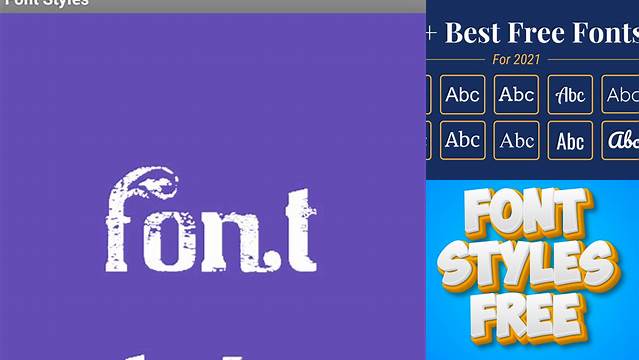
Free Font Styles Download For Android: A Guide
Hey guys! Are you tired of the same old fonts on your Android device? Do you want to add some personality and flair to your phone's interface? Well, you've come to the right place! In this comprehensive guide, we'll explore the world of free font styles for Android and show you how to download and install them. Get ready to transform your phone's typography and make it truly your own!
Why Customize Your Android Fonts?
Before we dive into the how-to, let's talk about why you might want to customize your fonts in the first place. Your phone's font is a crucial element of its overall look and feel. It affects everything from the readability of your text messages to the visual appeal of your home screen. By changing your font, you can:
- Express your personality: Fonts can be bold, elegant, playful, or serious. Choosing the right font can reflect your individual style and make your phone feel more like you.
- Improve readability: Some fonts are simply easier to read than others. If you struggle with the default font on your phone, switching to a more legible option can make a big difference.
- Enhance visual appeal: A new font can give your phone a fresh, modern look. It's a simple way to breathe new life into your device without spending a dime.
- Stand out from the crowd: In a world of identical smartphones, custom fonts are a great way to set your device apart.
So, if you're looking to personalize your Android experience, changing your font is a fantastic place to start. Let's get into the different methods and some awesome font resources!
Pros of using font apps:
- Ease of Use: Font apps are generally user-friendly and offer a straightforward way to browse, download, and install fonts.
- Wide Selection: These apps often have vast libraries of fonts, giving you plenty of options to choose from.
- Preview Feature: Many apps allow you to preview how a font will look before you download it, helping you make the right choice.
Cons of using font apps:
- Root Access May Be Required: Some apps require root access to apply fonts system-wide, which can be a barrier for many users.
- Compatibility Issues: Not all font apps are compatible with all Android devices. You may encounter issues with certain apps or fonts.
- Ads and In-App Purchases: Many free font apps are supported by ads, and some offer premium fonts or features through in-app purchases.
2. Using Custom Launchers
Another great method to customize fonts on Android is by using custom launchers. Custom launchers are apps that replace your phone's default home screen and app drawer with a customized interface. Many launchers offer advanced customization options, including the ability to change fonts. This is a great option if you want to overhaul your phone's look and feel beyond just the font.
- Download a Custom Launcher: Head to the Google Play Store and search for “custom launcher.” Popular options include Nova Launcher, Apex Launcher, Action Launcher, and Smart Launcher. Each launcher has its own unique features and style, so try a few to see which one you like best.
So there you have it, guys! A comprehensive guide to downloading and installing free fonts on your Android device. Changing your font is a simple yet effective way to personalize your phone and make it truly your own. Whether you choose to use a font app, a custom launcher, manual installation, or Substratum, there are plenty of options to explore. Just remember to download fonts from reputable sources, pay attention to licensing, and always back up your system before making major changes. Now go ahead and give your Android phone a fresh new look with some awesome fonts!